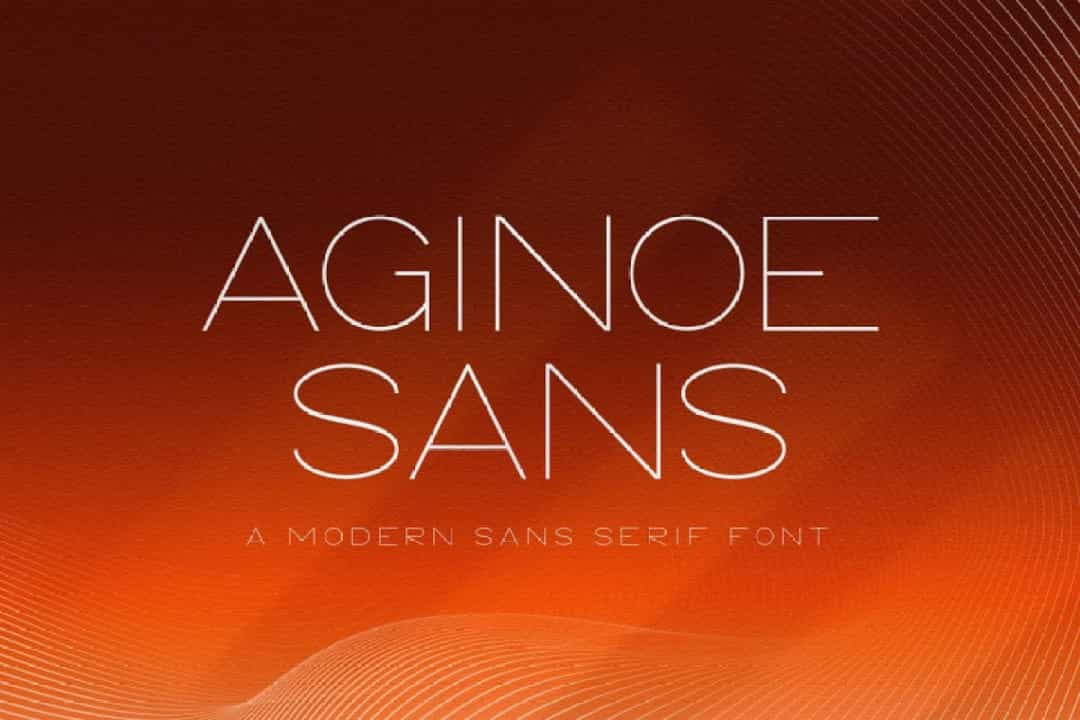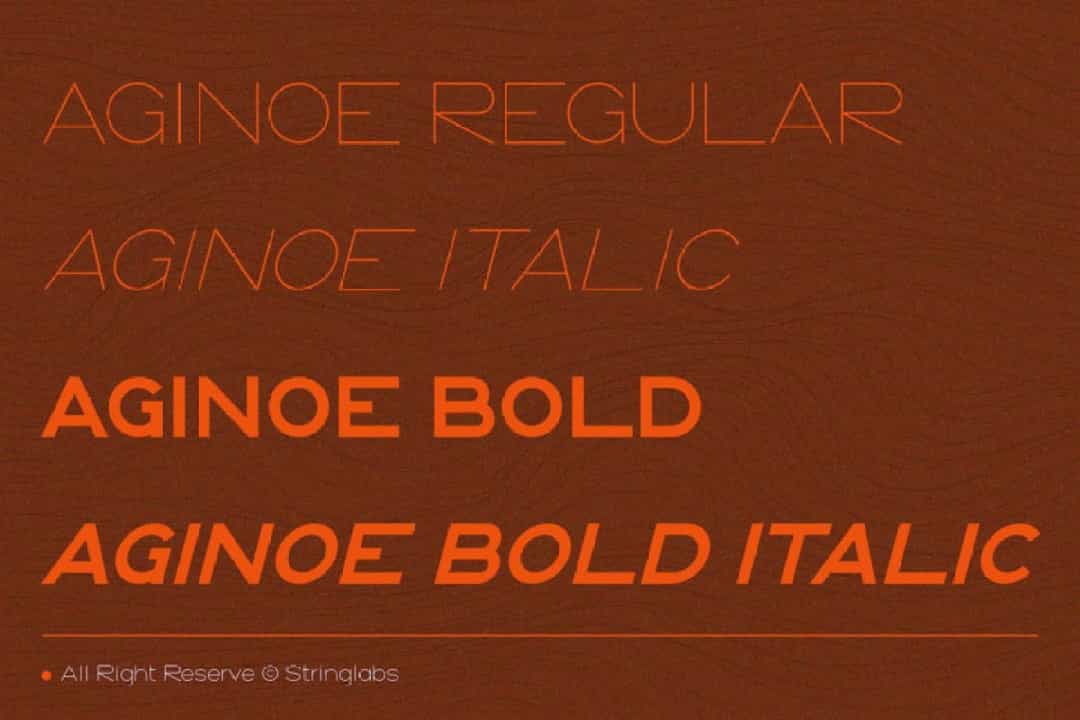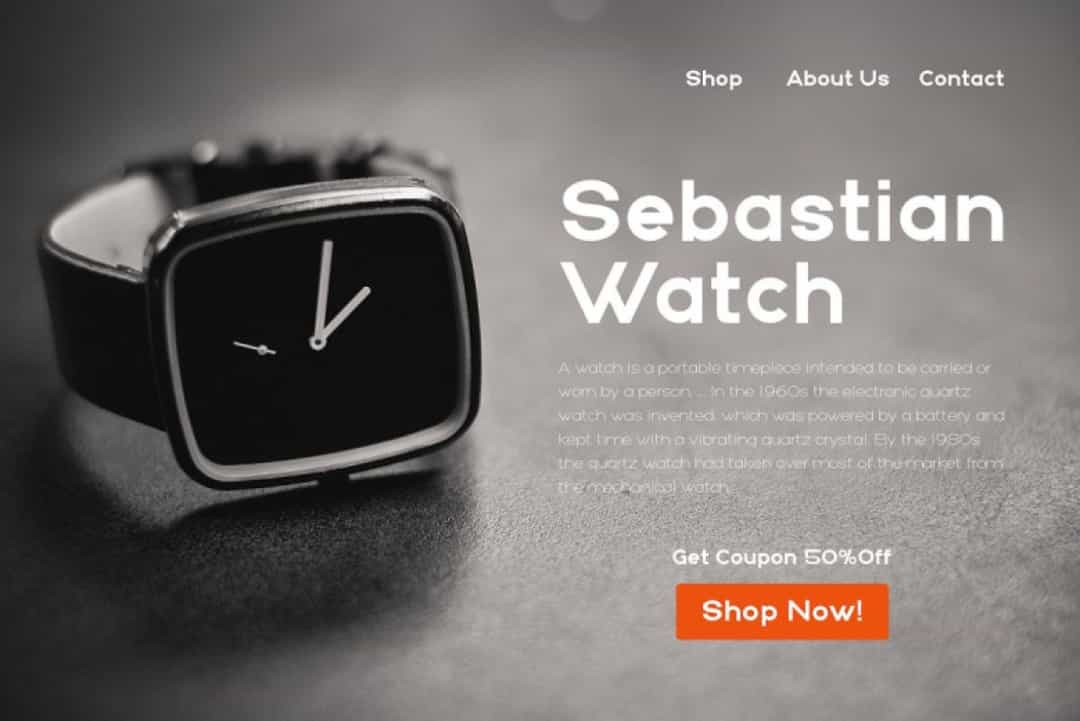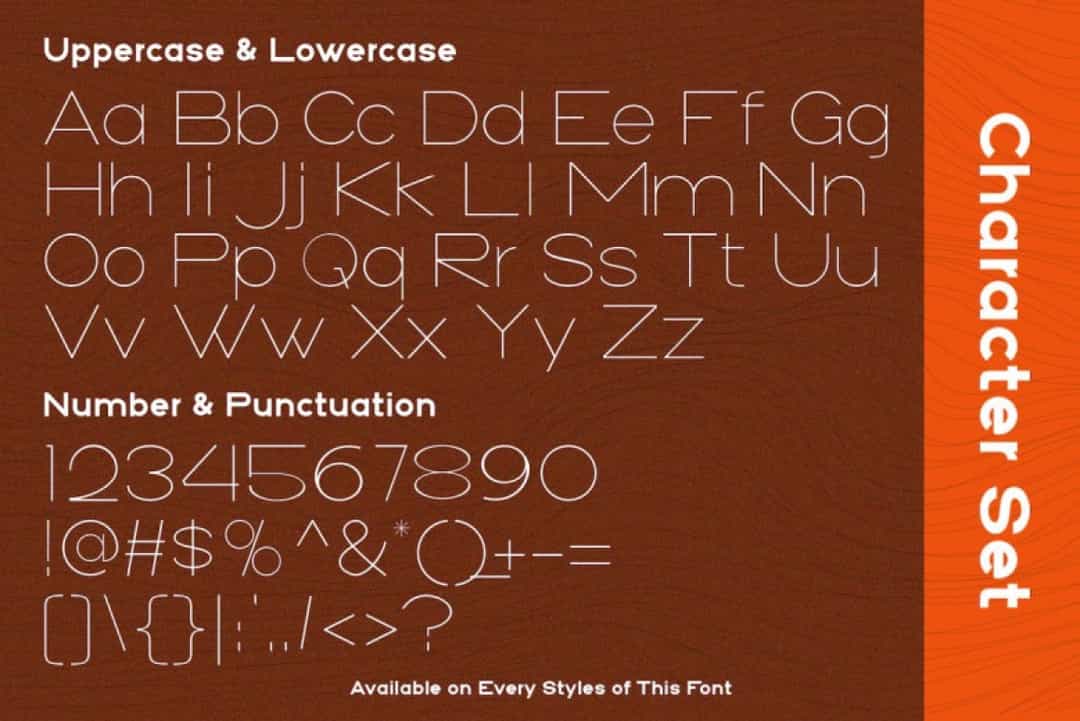
Discover Aginoe Modern Sans Font Family, part of the Sans Serif Basic collection—a versatile and unique font perfect for adding a personal touch to your projects. Download it for free and enjoy crafting designs with style, from invitations to social media posts. This font is available exclusively for personal use, giving you the freedom to create without limits. Unlock your creativity with Aginoe Modern Sans Font Family today!
Aginoe Sans is a beautiful sans-serif font that comes with a unique design and offers excellent legibility along with a contemporary look. It comes in normal, italic, bold italic and bold.